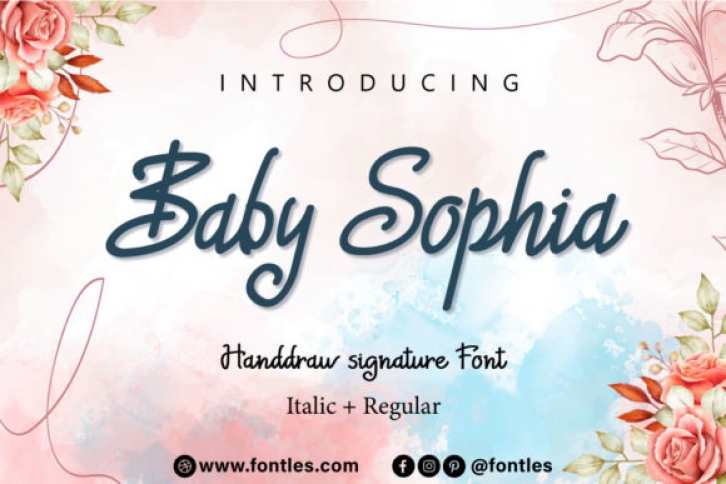
Baby Sophia is a flowing and casual handwritten font. Its distinct and well rounded letters make this font a masterpiece. Fall in love with its incredibly versatile style and use it to create spectacular designs!